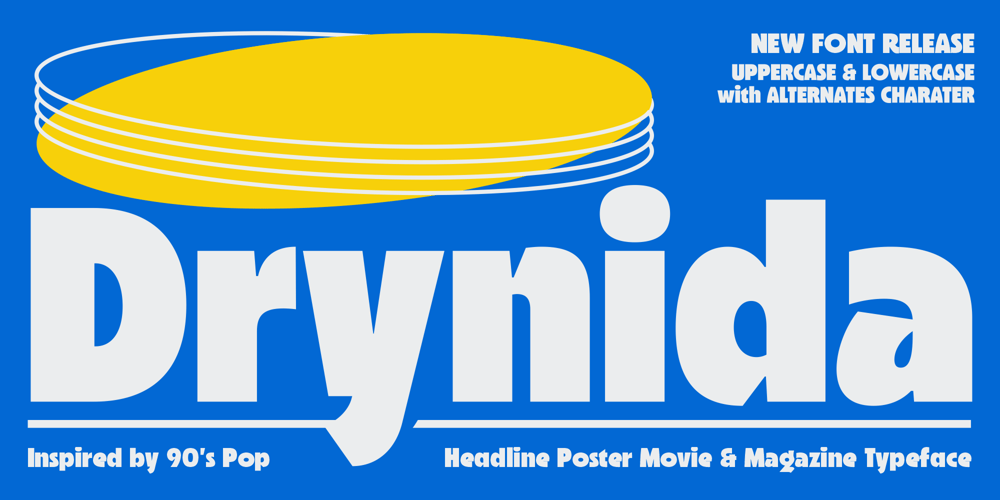
RTCO Drynida Font Family was designed by Abdul Rochman and published by Roams Type Co. RTCO Drynida contains 1 styles and family package options. Modern Vintage Sans Serif w/ Black Typeform. Inspired by 90’s Pop Headline Poster Movie & Magazine Typeface.This font is suitable for graphic designs such as Poster, logotypes, merchandise, printed stickers, and other branding needs.